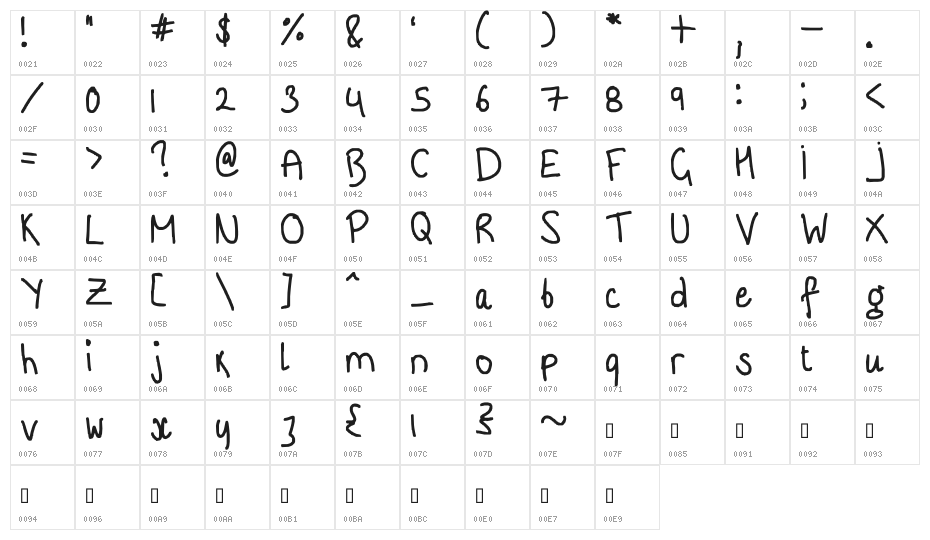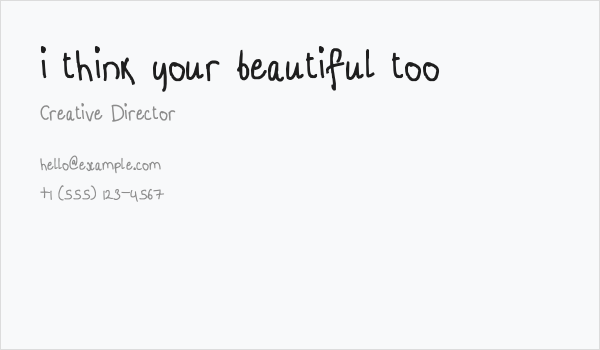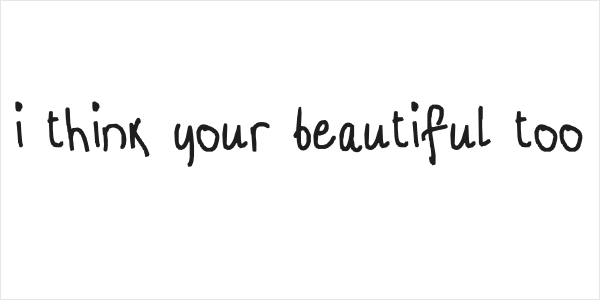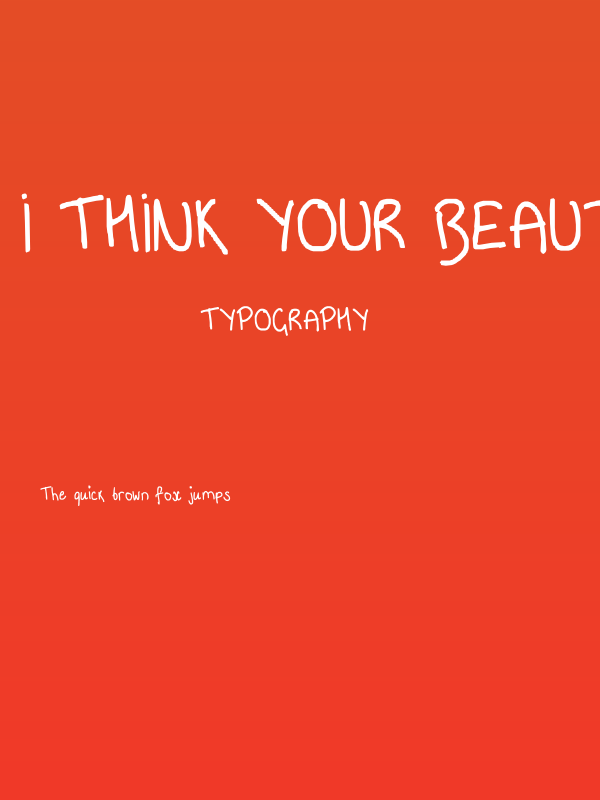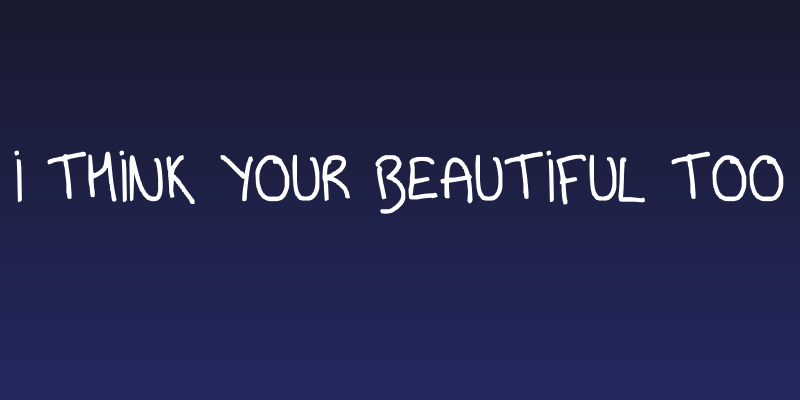
i think your beautiful too Font
i think your beautiful too Description
This font features a playful and casual handwritten style, characterized by its irregular and slightly uneven strokes that give it a personal and informal touch. The uppercase letters are bold and prominent, while the lowercase letters maintain a consistent flow with a slightly more rounded appearance. The numbers and special characters follow the same whimsical style, making them easily recognizable and adding to the font's charm. This font's overall appearance is approachable and friendly, making it suitable for projects that require a personal or informal tone.
| Use Case | Headlines, Informal text, Personal projects |
| Proposed Projects | Ideal for greeting cards, children's books, personal blogs, and informal branding. |